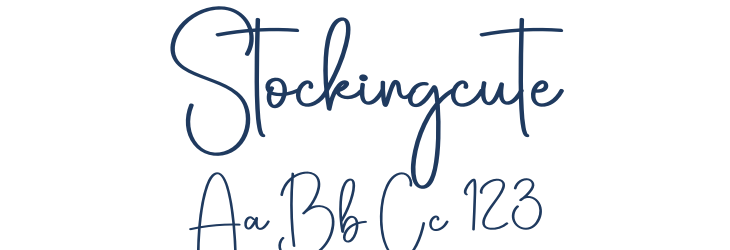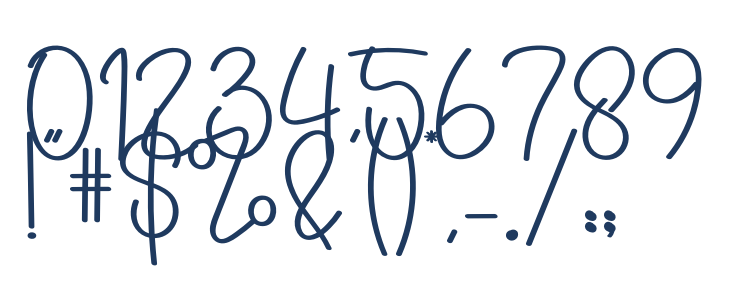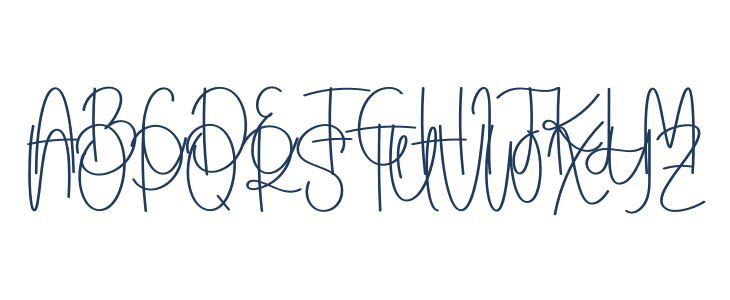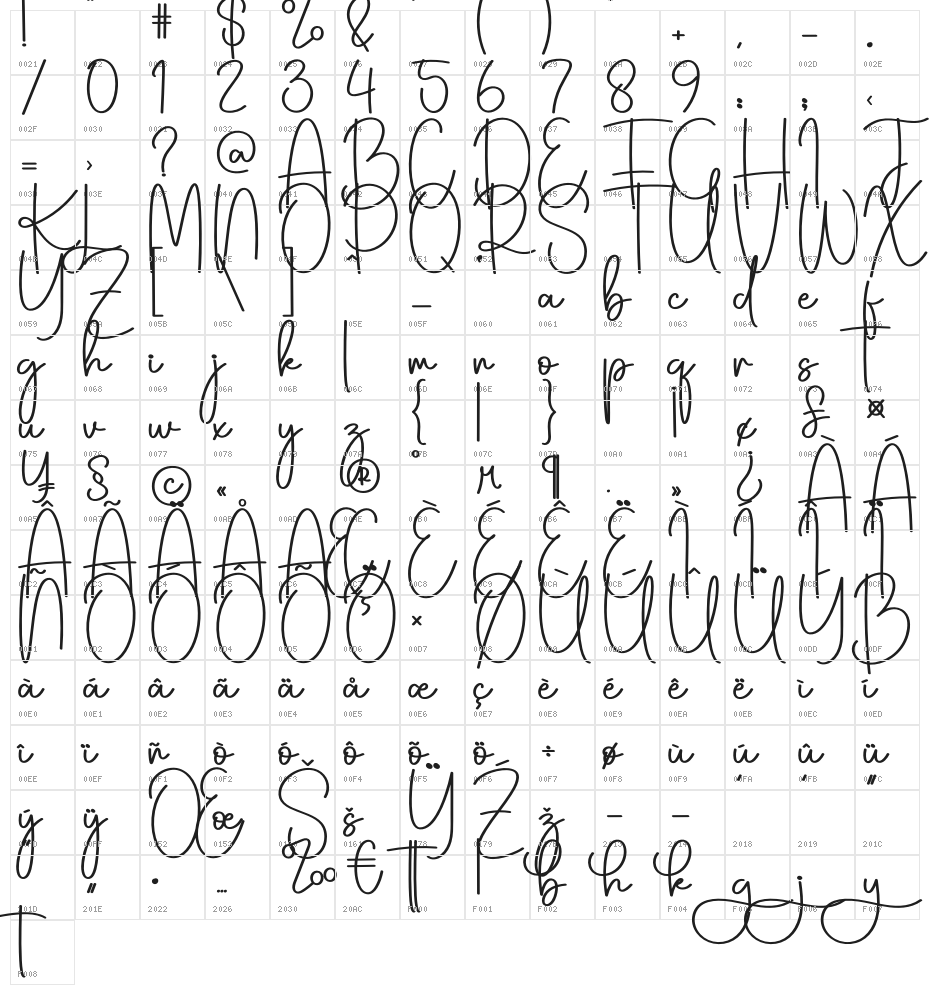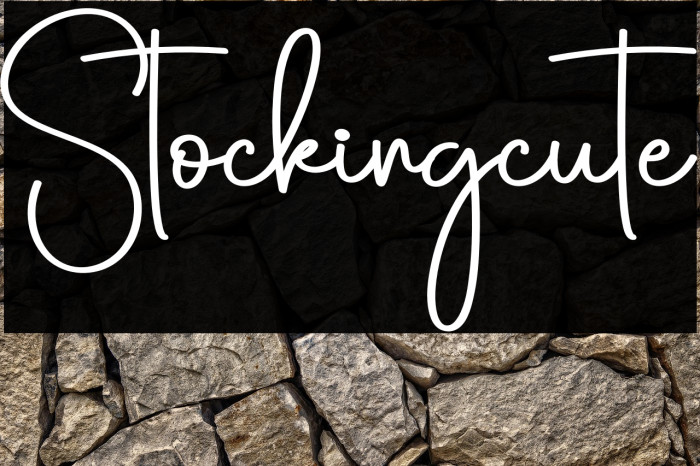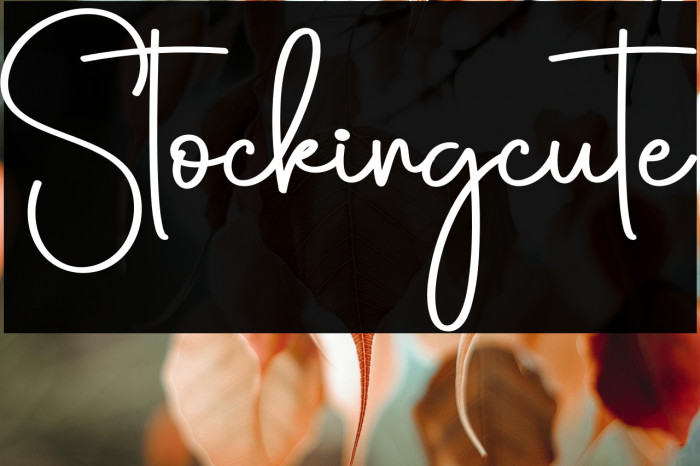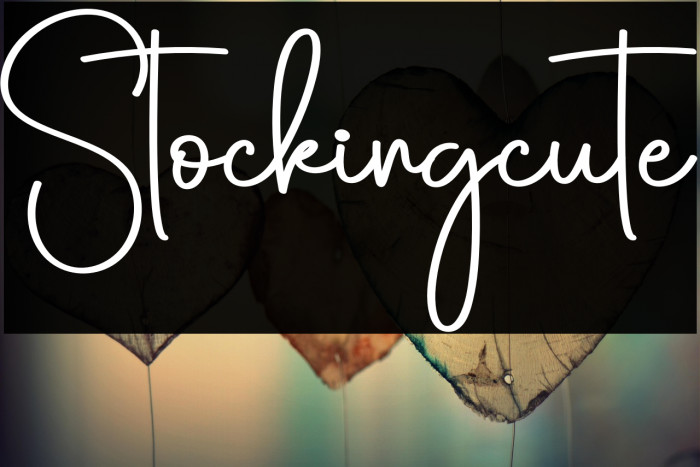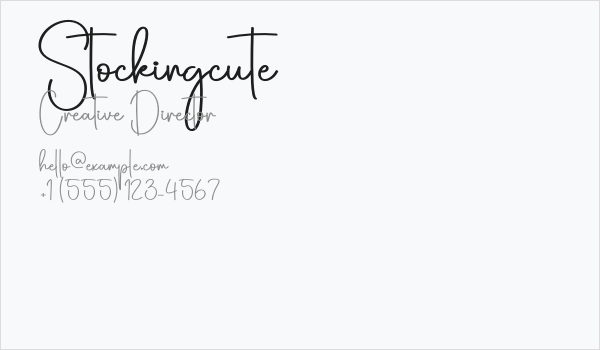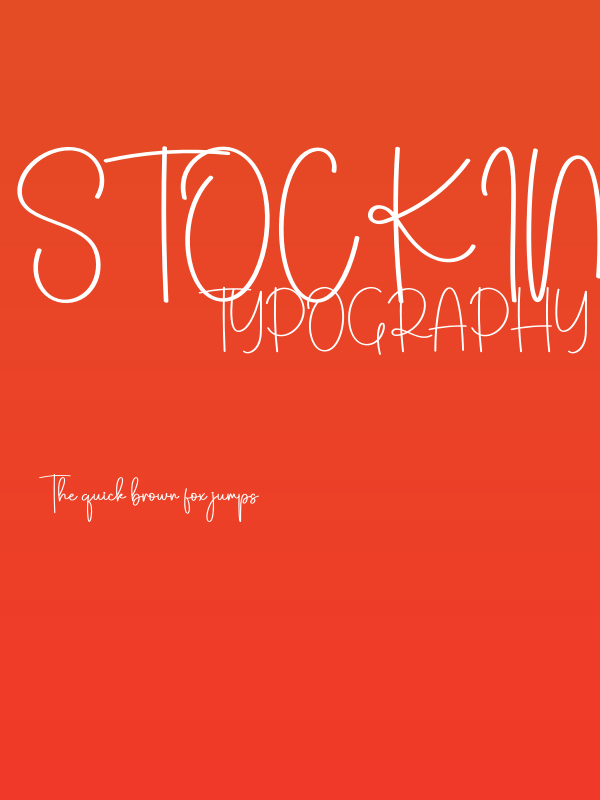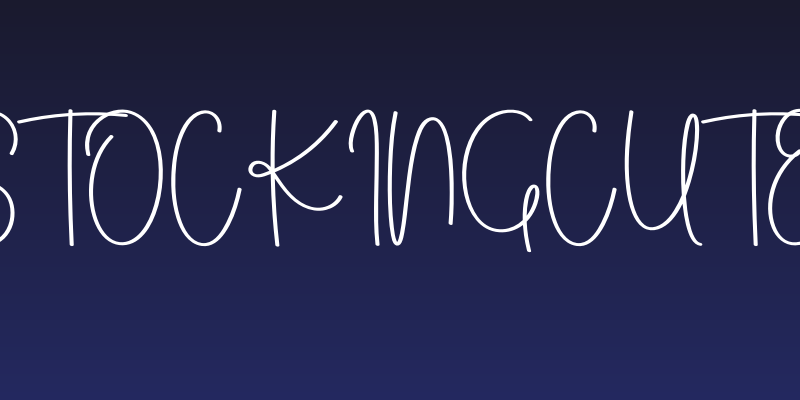
Stockingcute Font
Stockingcute Description
A playful, handwritten script with tall, narrow letterforms and a loose, casual flow. The strokes are thin and consistent, with exaggerated ascenders and descenders, giving it a whimsical and informal appearance.
| Width | Condensed |
| Overall Style | Playful, Whimsical, Casual |
| Use Case | Invitations, Greeting cards, Informal branding, Social posts |
| Proposed Projects | Greeting cards, children's books, invitations, social media graphics, playful branding. |